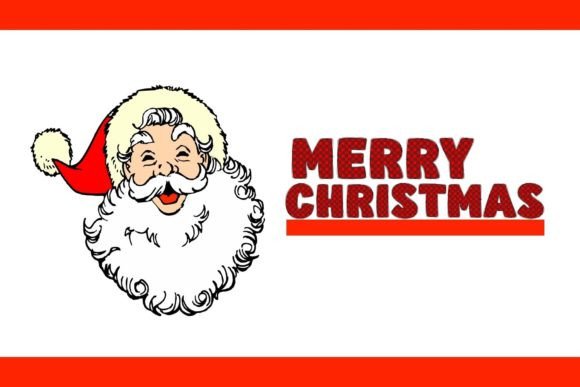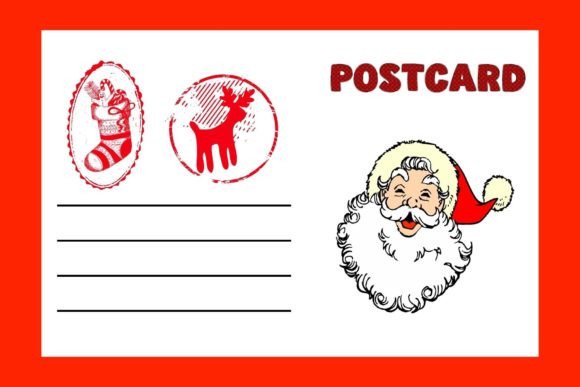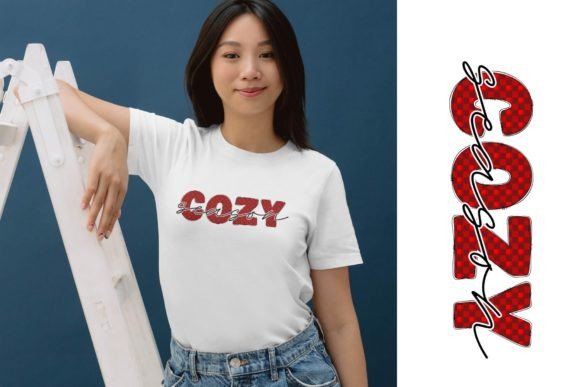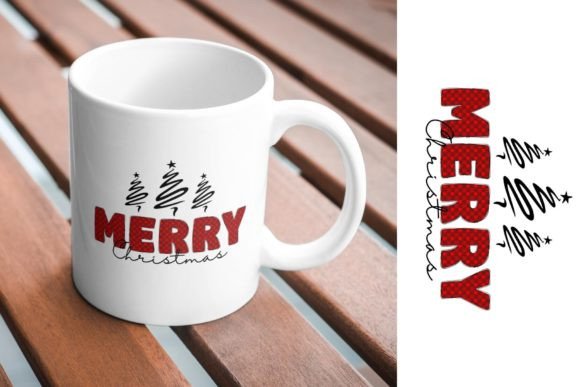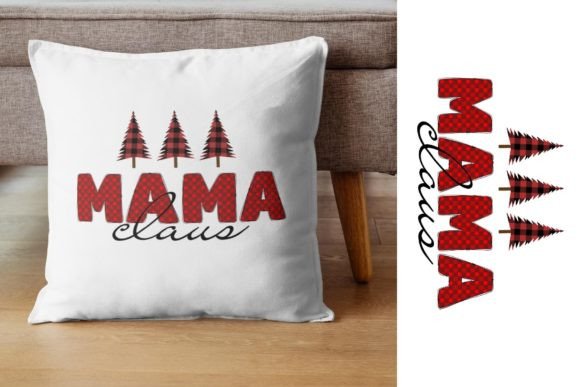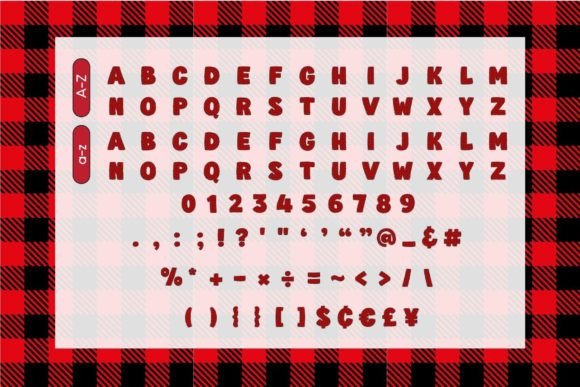
Introduction to Fox Xmas-v1 Font
Imagine you’re brainstorming ideas for your holiday campaign, and suddenly, you stumble upon the perfect font to capture the festive spirit. The Fox Xmas-v1 Font is here to bring that magic to your creative projects. This cool, fun color font is a game-changer for designers looking to add an authentic touch to their designs.
With its high-quality design and transparent background, the Fox Xmas-v1 Font is a valuable resource for any creative project. Whether you’re crafting gorgeous invitations, beautiful stationery art, or eye-catching social media posts, this font is sure to make your work stand out. And the best part? It’s available for free download, making it an accessible design resource for designers of all levels.
As a designer, you know how much of a difference a single font can make in a project. The Fox Xmas-v1 Font is a must-have for anyone looking to add a touch of holiday cheer to their work.
Key Features of Fox Xmas-v1 Font
- High-quality design resource ideal for creative projects, especially Christmas-themed illustrations and graphics.
- Features a transparent background, making it easy to integrate into various design elements and backgrounds.
- Designed with a modern and festive aesthetic, perfect for adding a touch of holiday cheer to designs.
- Unique characteristics include bold, playful, and whimsical letterforms, adding a creative touch to any design project.
- Perfect for designers looking for a free and high-quality design resource to enhance their creative projects.
Honest Review: Fox Xmas-v1 Font
I recently stumbled upon the Fox Xmas-v1 Font, and I must say it’s a fantastic design resource. As a designer, I’m always on the lookout for high-quality fonts to elevate my creative projects. This font does not disappoint.
- ✨ The Fox Xmas-v1 Font has a transparent background, which makes it easy to use in any design context.
- ✨ The font is incredibly versatile and can be used for a wide range of design projects, from festive holiday cards to elegant wedding invitations.
While the Fox Xmas-v1 Font is an excellent addition to any design toolkit, there are a few limitations to be aware of:
- ⚠️ The font is primarily designed for holiday-themed projects, so it may not be as useful for everyday design tasks.
Overall, I’m thoroughly impressed with the Fox Xmas-v1 Font. Its high quality and versatility make it a must-have for any designer working on creative projects. Whether you’re designing holiday cards or elegant invitations, this font is sure to bring a touch of sophistication to your designs.
The Fox Xmas-v1 Font is ideal for creative projects such as holiday cards, invitations, and social media graphics. Its high-quality design makes it a great addition to any design resource. You can also use it for personal projects, such as photo editing or graphic design.